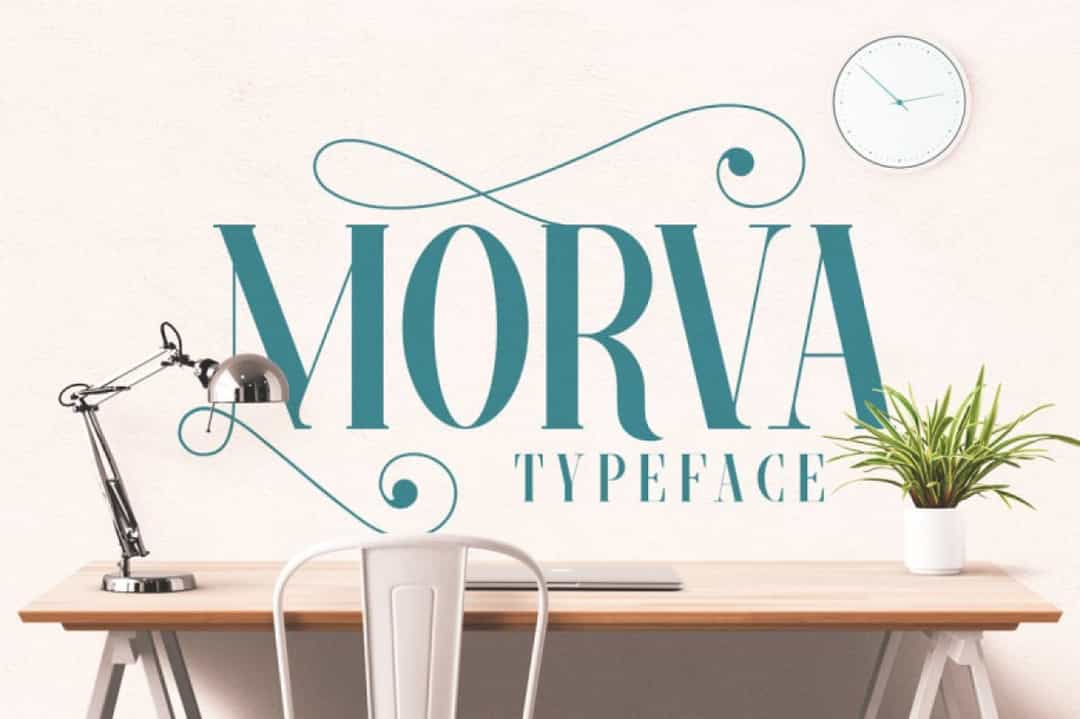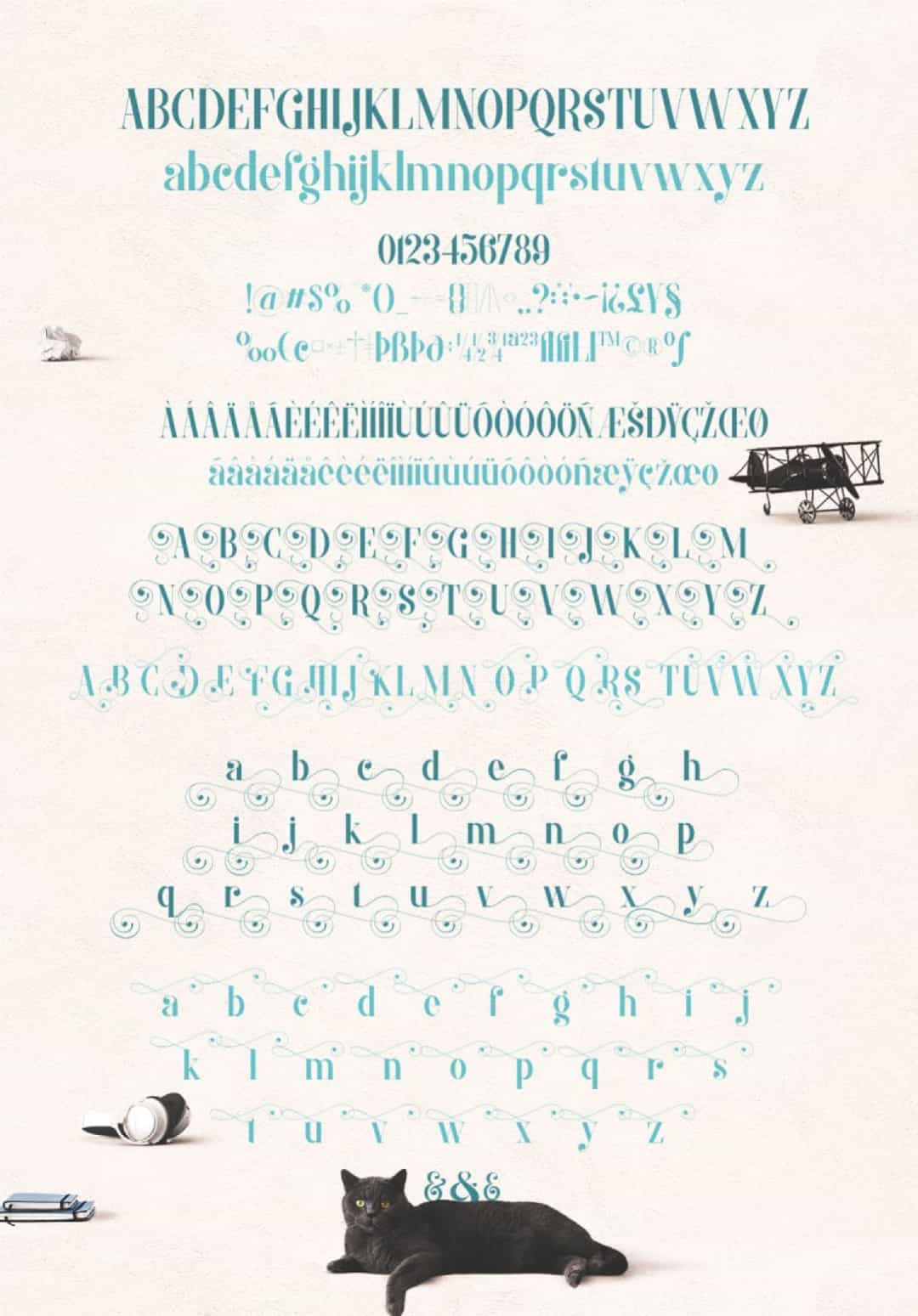
MORVA TYPEFACE was released for public consumption for the first time ever on February 17, 2017, marking a simple and beautiful font created with perseverance and care. MORVA Typeface stands out among serif fonts with its distinct bracketed serif design and eye-catching swirl ornaments, making this font truly one-of-a-kind.